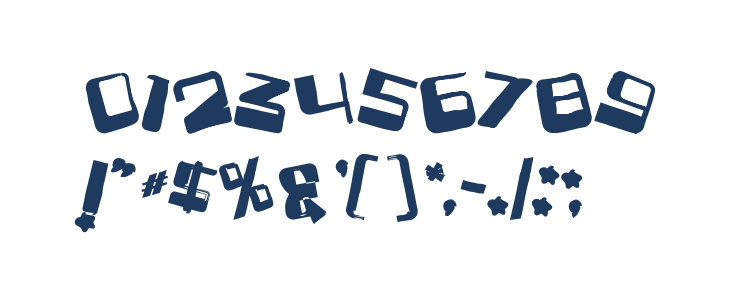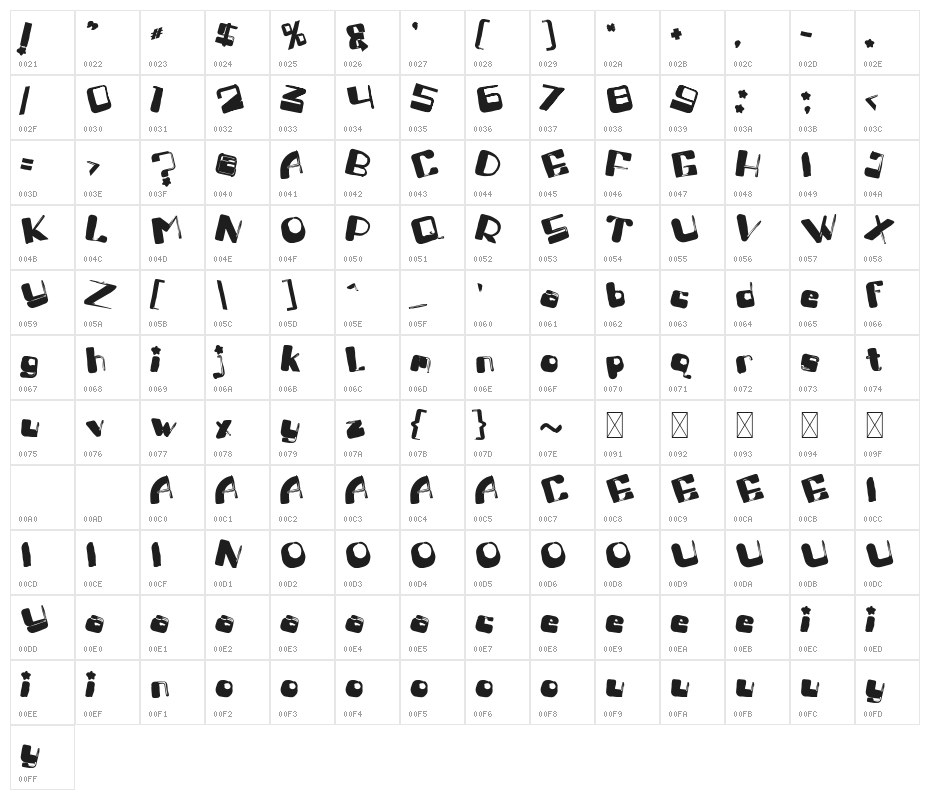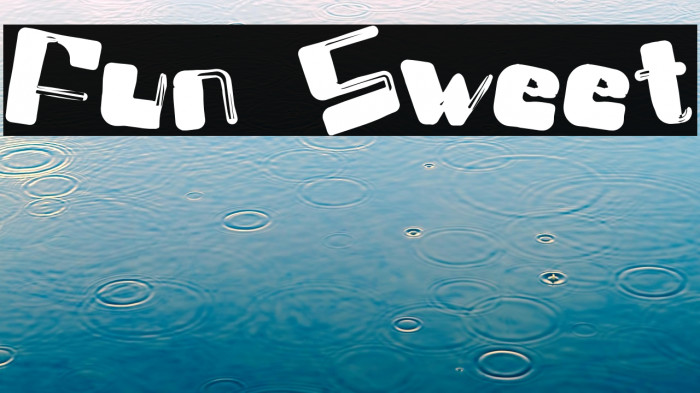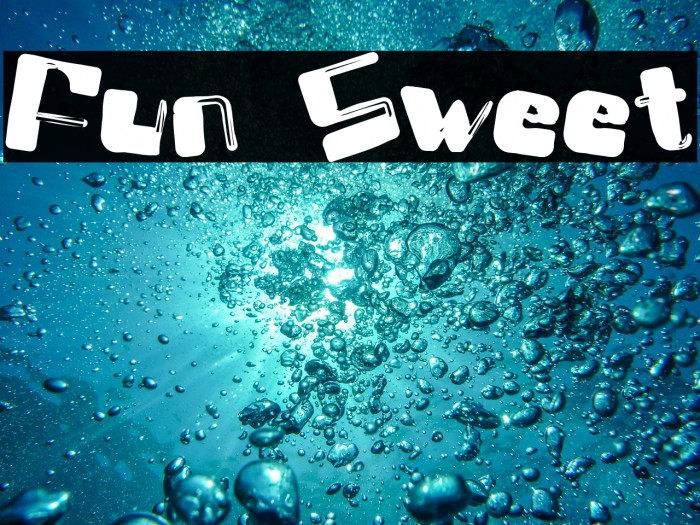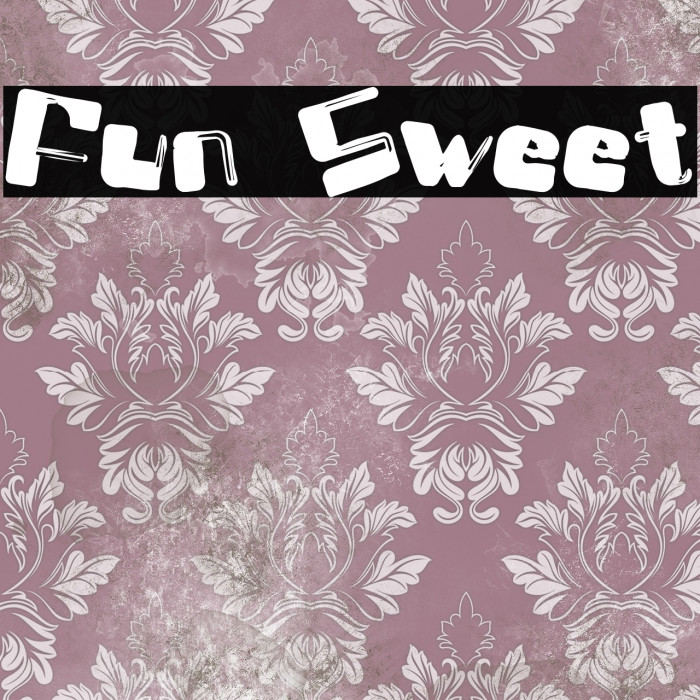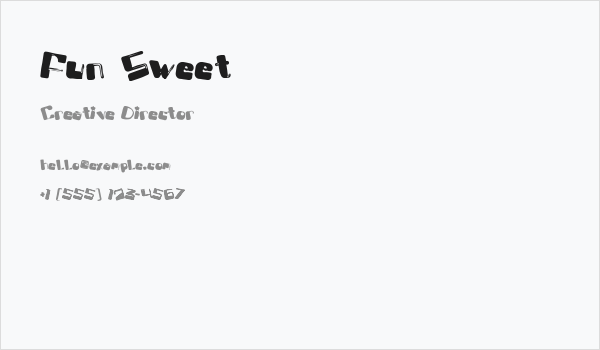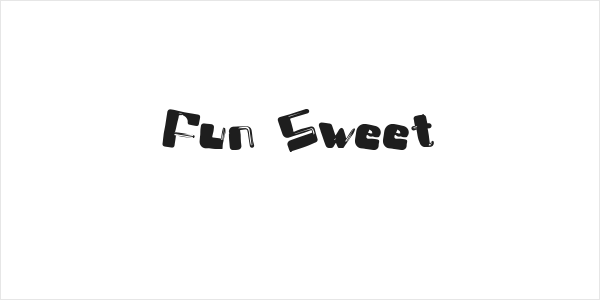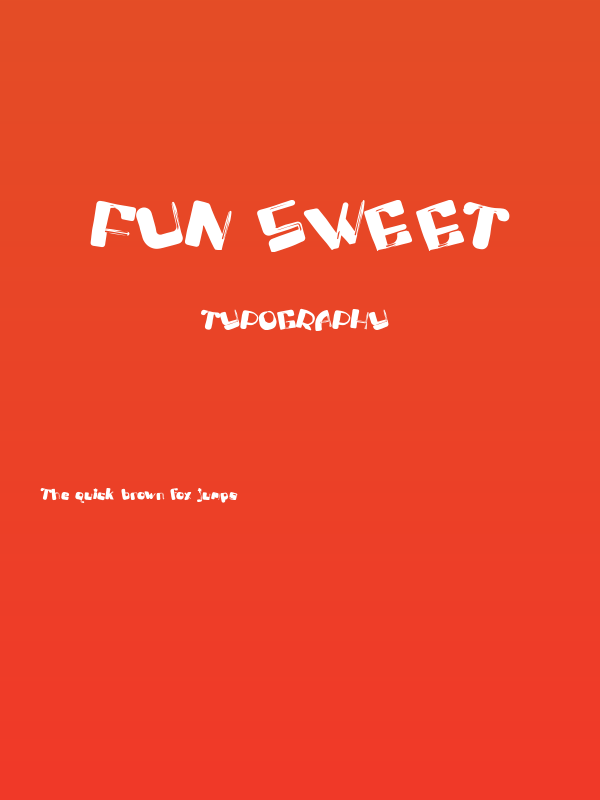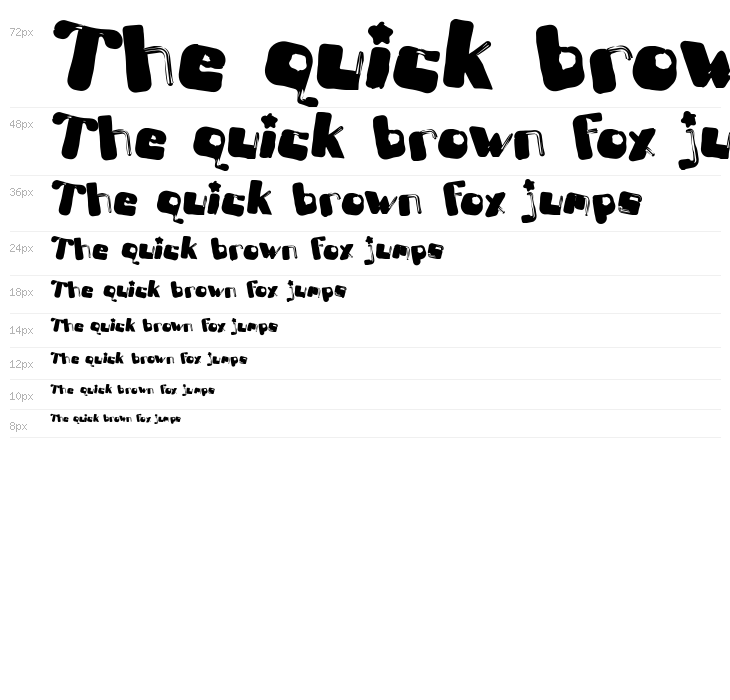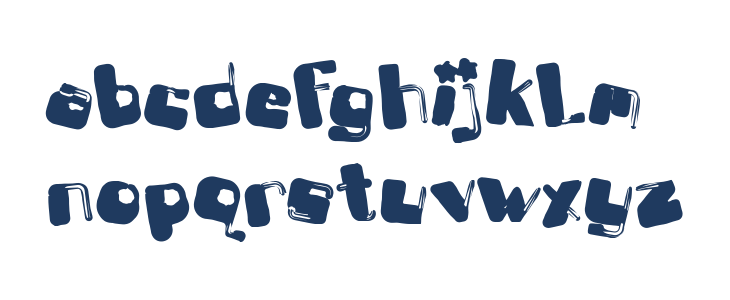
Fun Sweet Font
Fun Sweet Description
This playful and bold font features a unique, hand-drawn style with irregular shapes and a lively, energetic appearance. The characters are thick and chunky, with uneven edges that give a sense of movement and spontaneity. The uppercase and lowercase letters maintain a consistent whimsical theme, while the numbers and special characters follow suit with their quirky designs. The font's boldness and distinctiveness make it stand out, perfect for projects that require a fun and informal touch. Its artistic flair is evident in the varied stroke widths and the playful integration of elements within each character.
| Overall Style | Playful, Artistic, Whimsical |
| Proposed Projects | Ideal for children's books, playful branding, party invitations, and creative posters. |